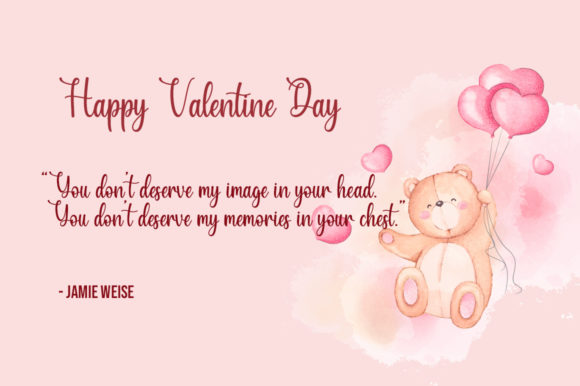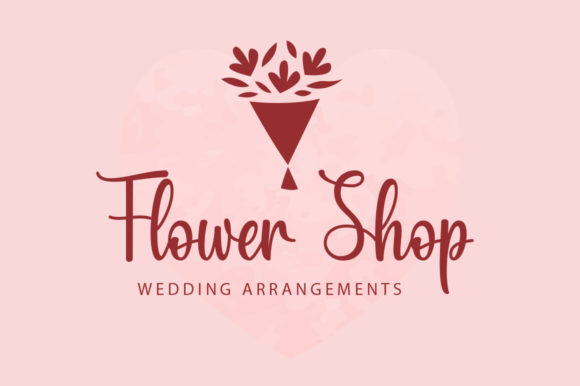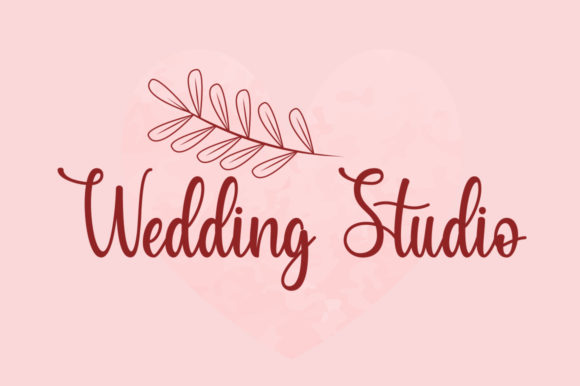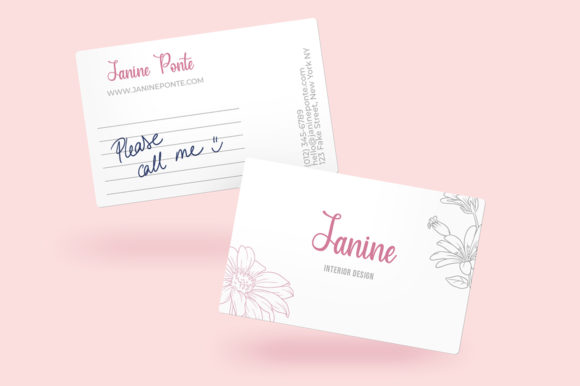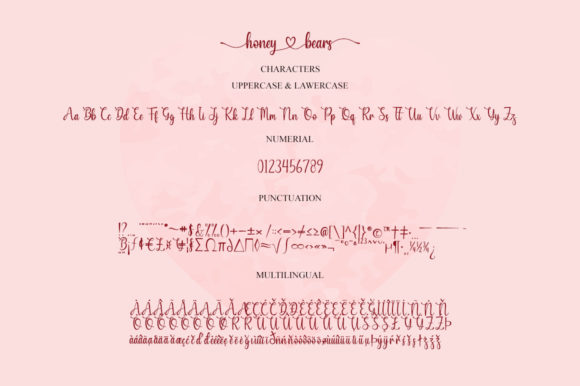
About Honey Bears Font
Honey Bears is a beautiful handwritten font, featuring a sweet flow. It looks lovely on invitations, thank you cards, quotes, greeting cards, logos, business cards and every other design which needs a romantic touch. This font is PUA encoded which means you can access all of the glyphs and swashes with ease!